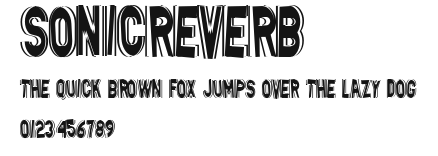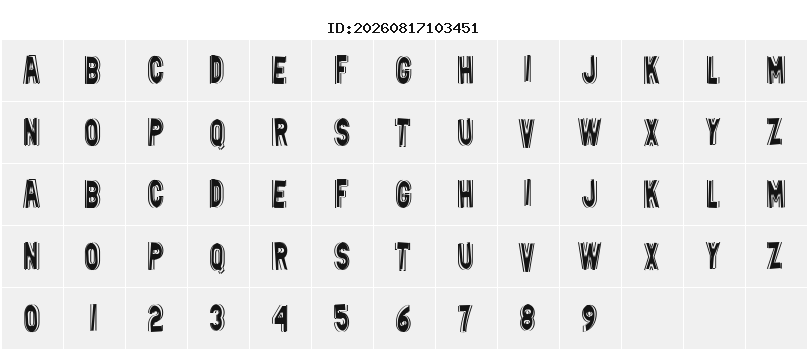
SonicReverb Preview
• Font Name: SonicReverb
About SonicReverb.ttf
SonicReverb.ttf is a modern, elegant sans-serif font designed for ultimate readability and visual harmony. Perfect for branding, headlines, web design, and print materials.